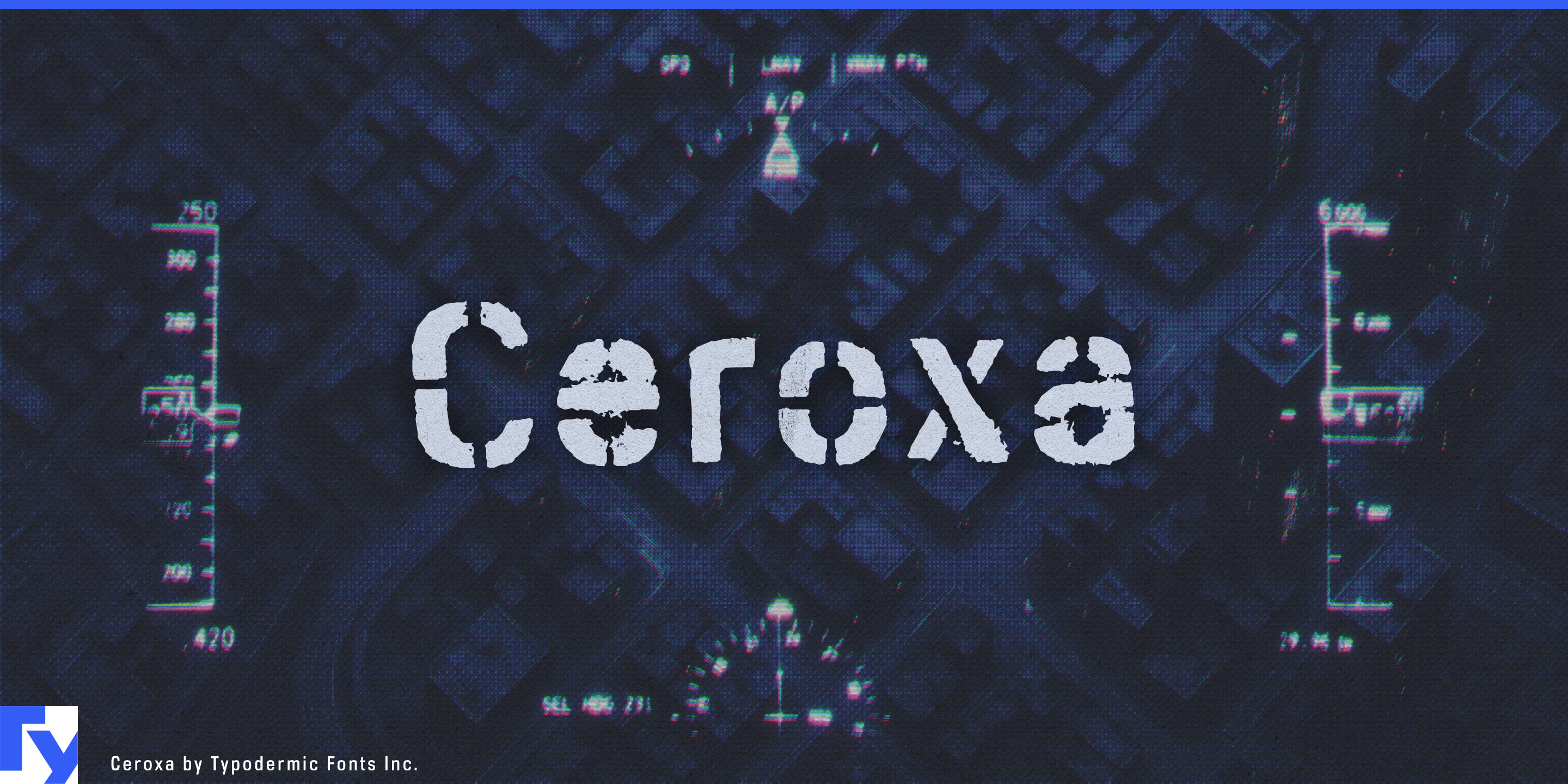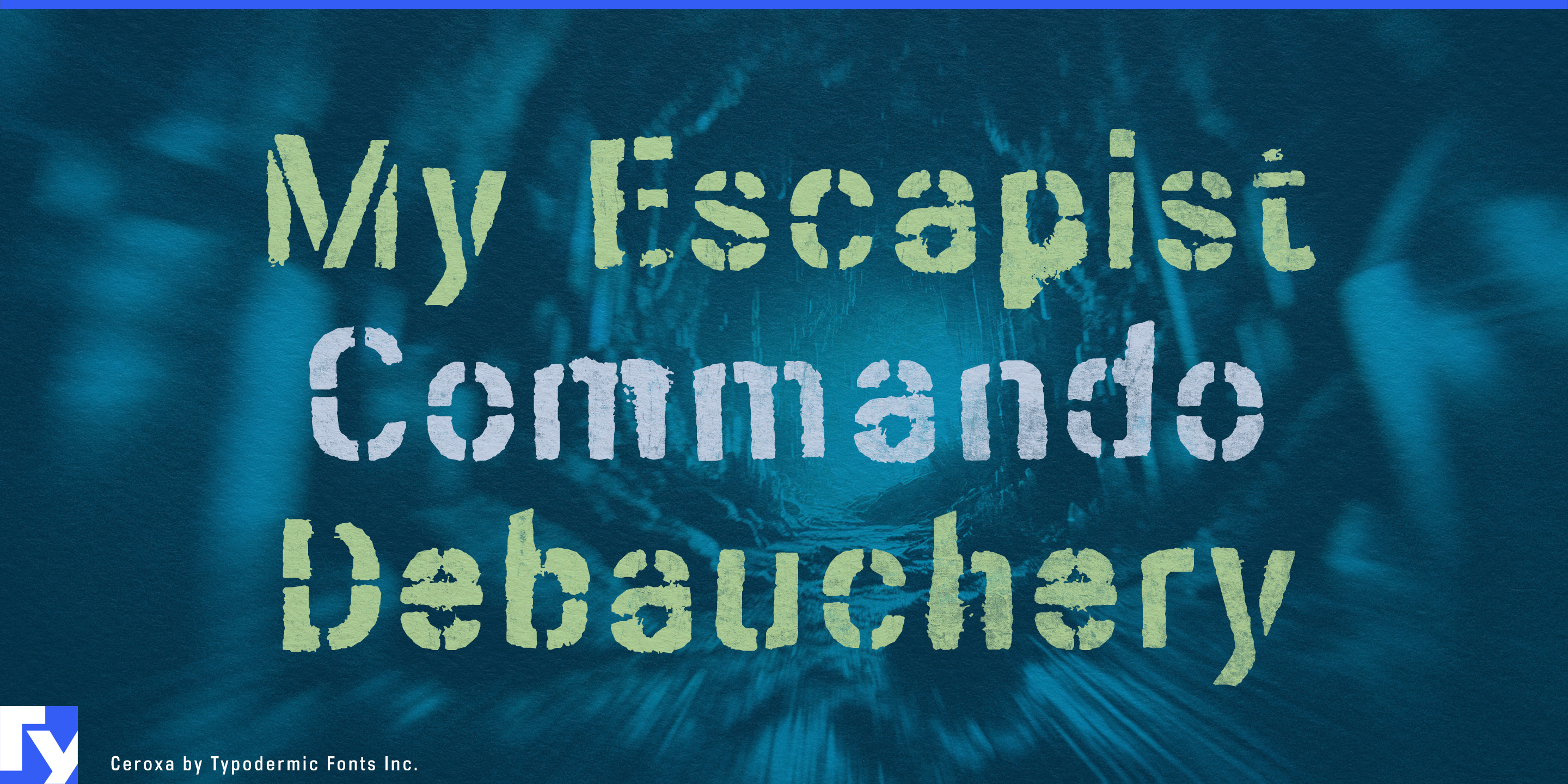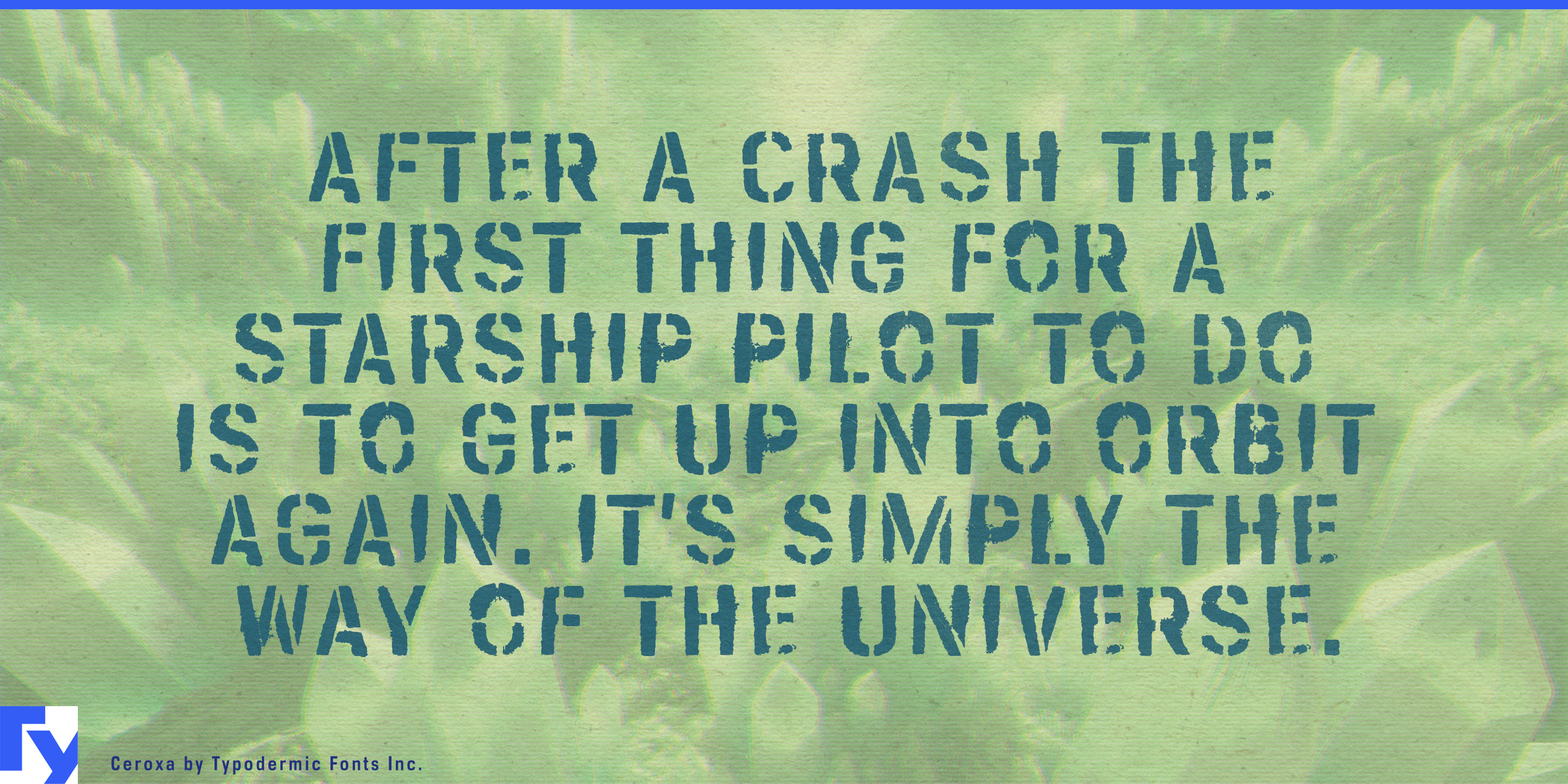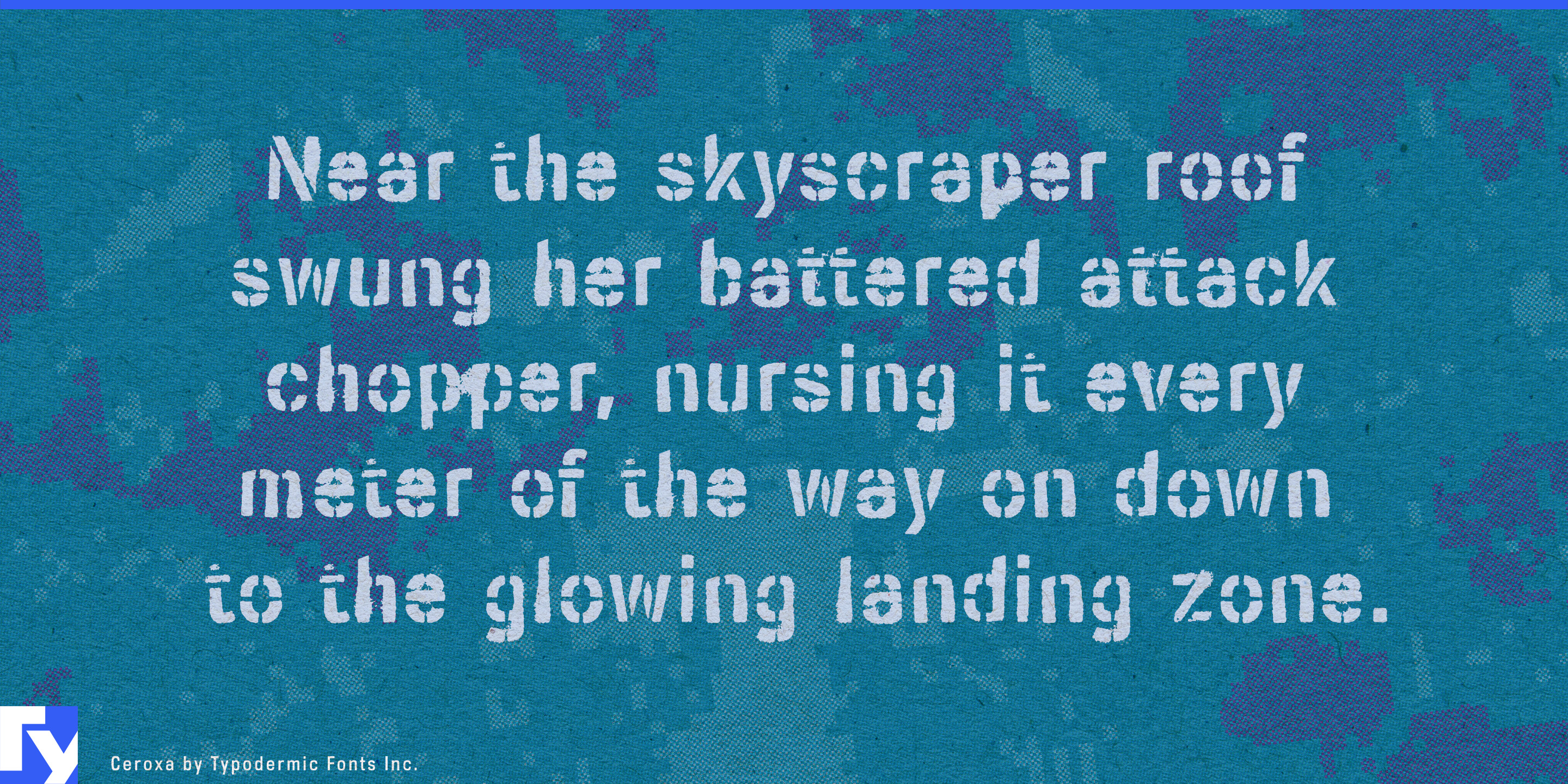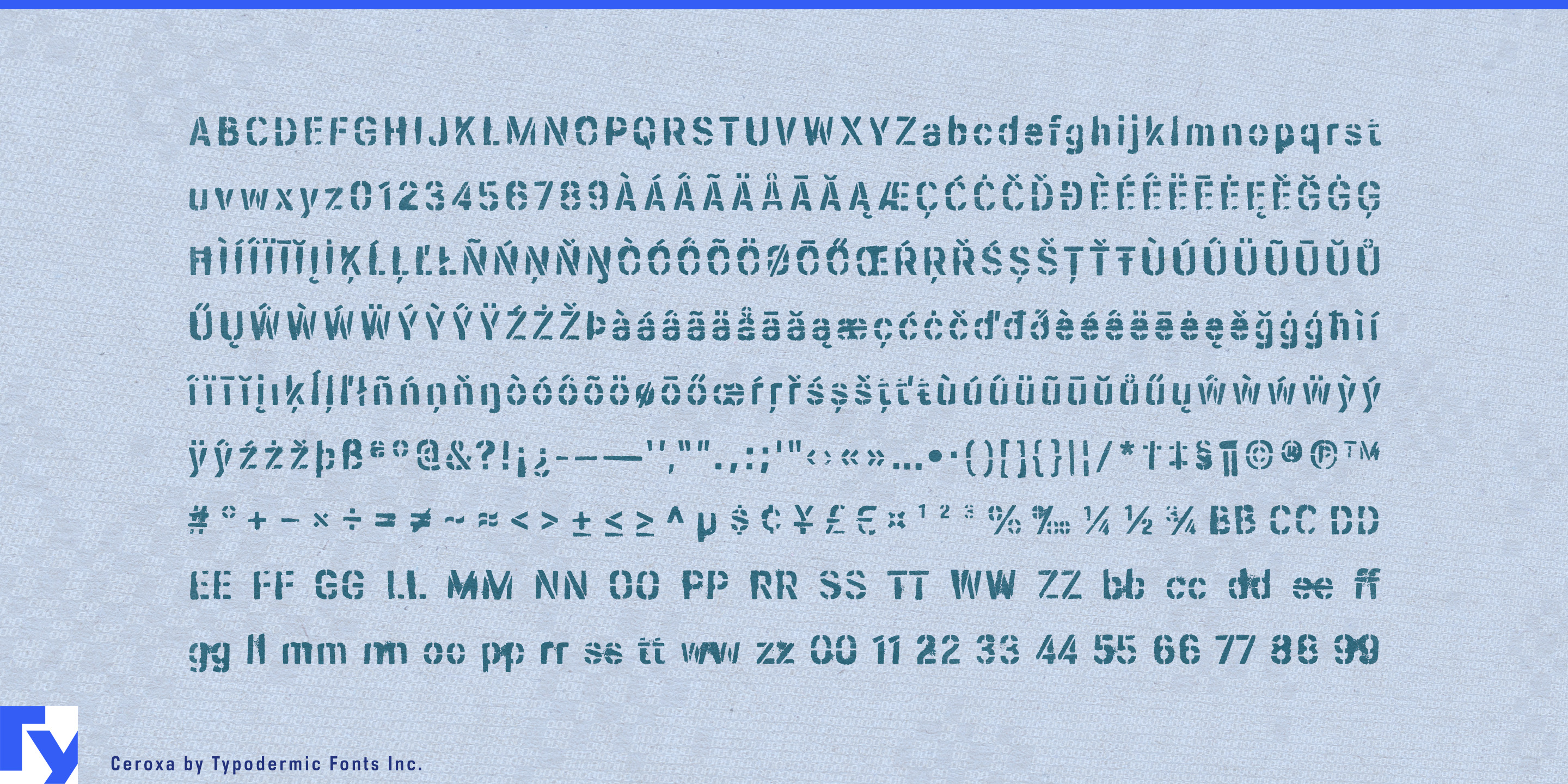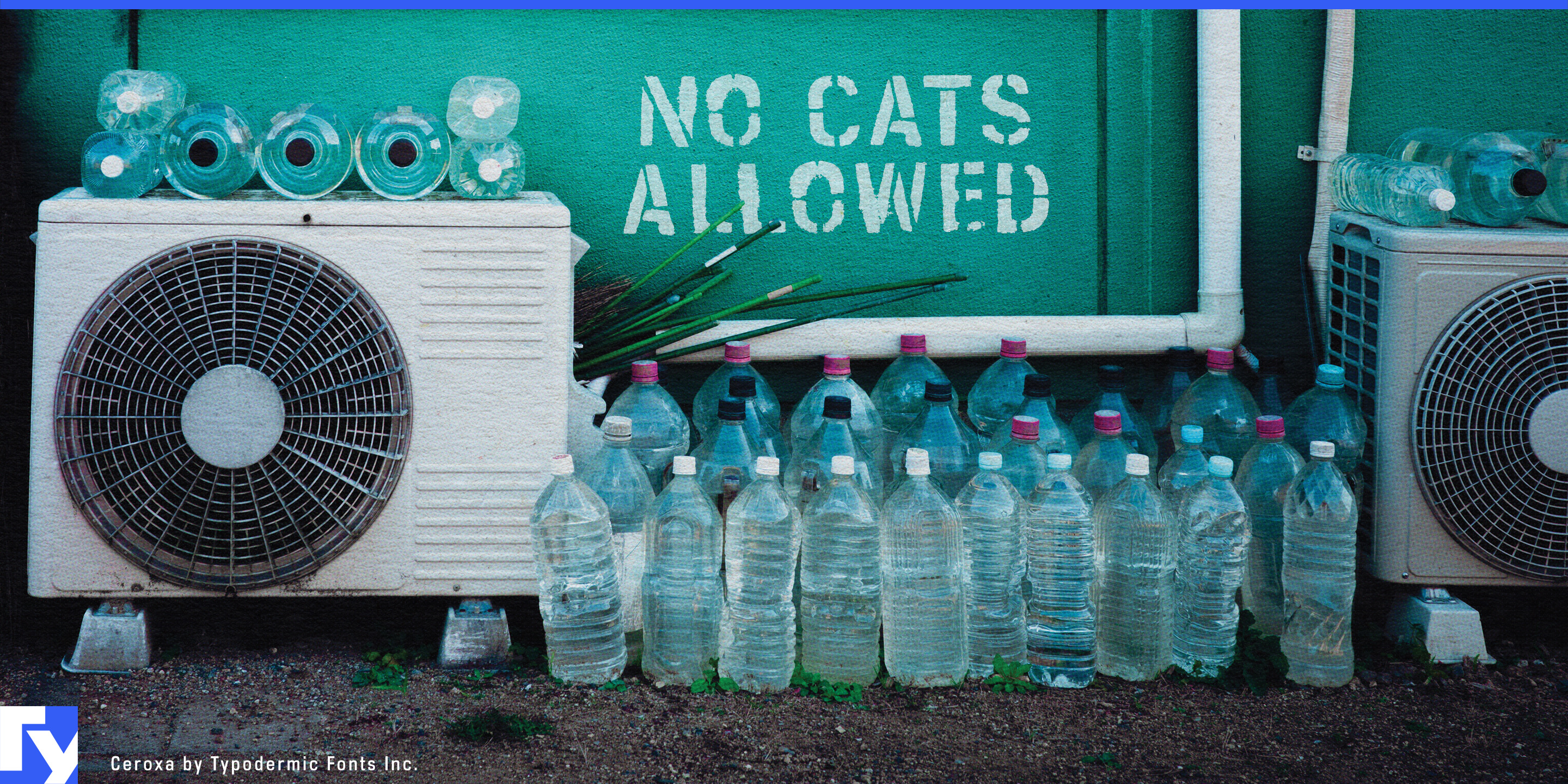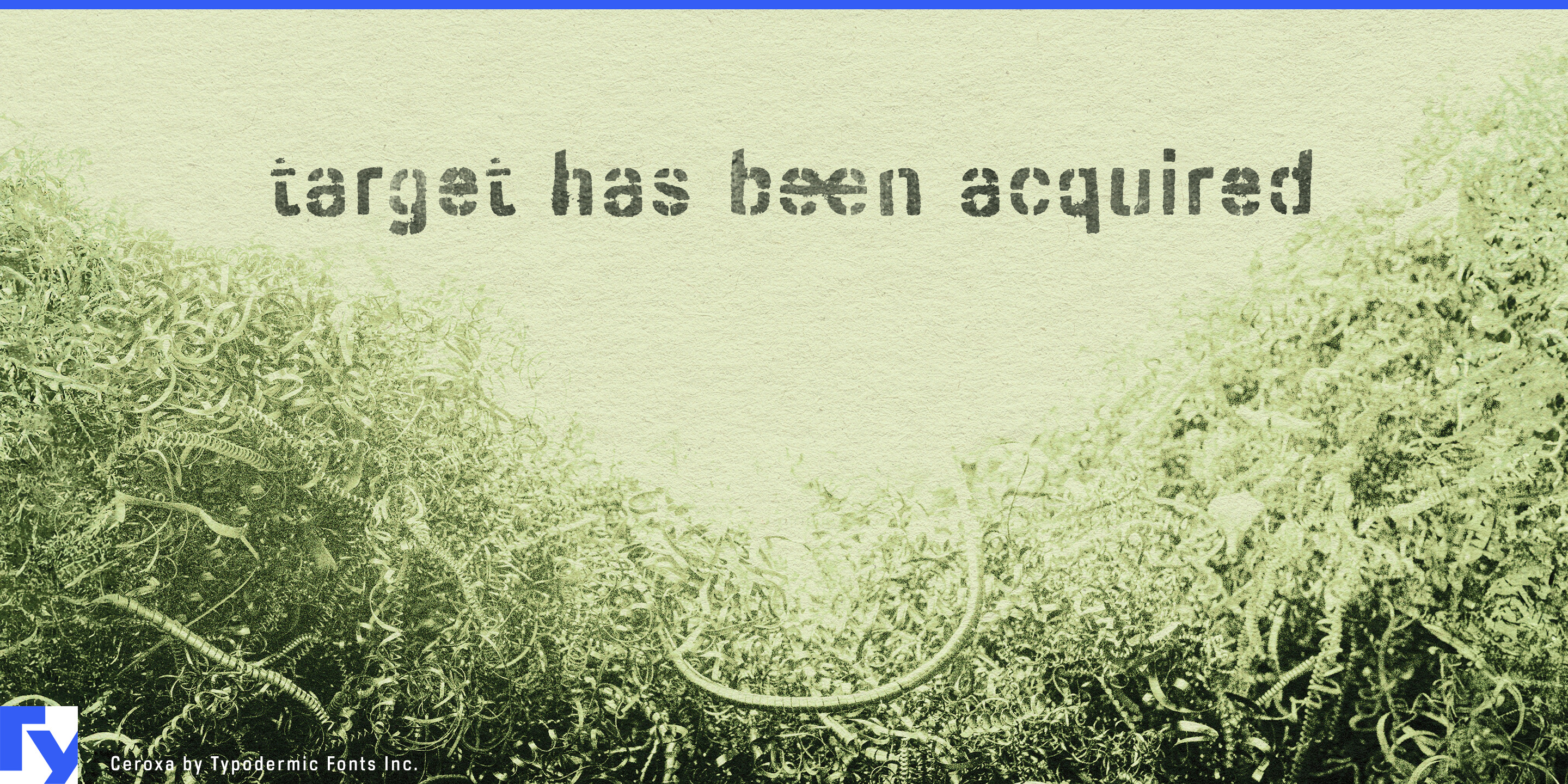
Ceroxa
Military-inspired graphics often get trapped between two extremes. Traditional stencil lettering can make a contemporary product look as though it came from a mid-century supply depot; cleaner tactical typography can feel so polished and standardized that it loses the sense of equipment being used, reassigned, repaired, and marked by hand.
Ceroxa takes a different route. The underlying letterforms are technical and contemporary without becoming overtly techno, while the sprayed stencil treatment makes them look manually applied after the object was manufactured. Irregular edges, overspray, and changing stencil combinations suggest temporary identification, field modification, and rough handling rather than factory-perfect graphics.
Military-derived fashion and streetwear are a natural setting. Flight jackets, bombers, cargo collections, utility vests, technical overshirts, canvas bags, caps, and patch-heavy accessories often borrow the language of issued equipment without reproducing an actual uniform. Ceroxa can handle jacket-back graphics, faux unit designations, inventory-style numbers, collection names, hangtags, pop-up walls, collaboration graphics, and oversized garment markings.
Tactical and extraction games provide another strong territory. Near-future shooters, survival games, faction-based combat worlds, and extraction environments need graphics that feel used rather than freshly designed. Ceroxa suits faction markings, safe-house walls, extraction-zone titles, weapons-case graphics, cargo containers, vehicle numbers, temporary base signage, season graphics, collector-edition packaging, and environmental lettering.
Mecha, model kits, and military-flavored collectibles extend the same idea into fictional machinery. Robot kits, sci-fi vehicles, armored machines, weapons packs, and adult collectibles often depend on unit numbers, maintenance markings, and squadron graphics to make the object feel operational. Ceroxa can carry box titles, decal-style graphics, display-base lettering, fictional unit identities, collector packaging, and retail launch displays.
Rugged consumer gear provides a real-world counterpart. Protective equipment cases, overlanding storage, camera hard cases, portable power stations, motorcycle luggage, field tool kits, recovery gear, drone transport cases, and adventure electronics already share some of the visual language of military logistics. Ceroxa can give model-series names, hard-case lid graphics, special field editions, transport bags, accessory kits, campaign photography, and trade-show displays a pseudo-issued character without implying that the product is actual military equipment.
Ceroxa also works well in production design. A clean corporate typeface can identify the fictional manufacturer; Ceroxa can supply the markings added later by the people using the equipment: cargo-bay labels, resupply containers, temporary landing zones, salvage equipment, repaired vehicles, field depots, and improvised outposts.
Ceroxa is most useful when military flavor needs to feel deployed rather than ceremonial. The alphabet stays technically contemporary; the sprayed application supplies the wear, imperfection, and sense that someone positioned the stencil by hand because the situation required it.